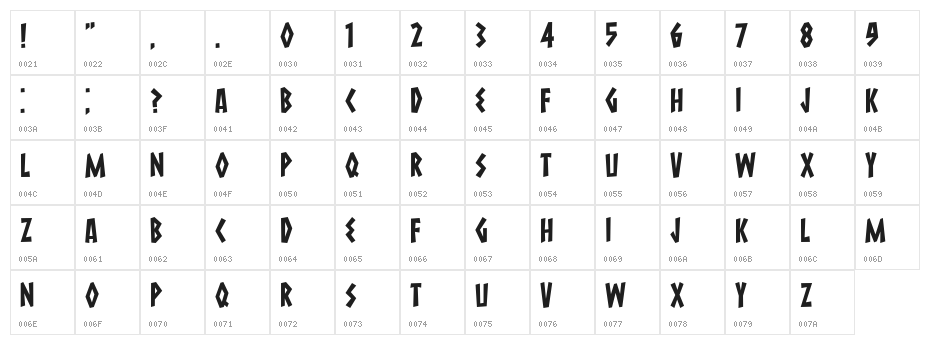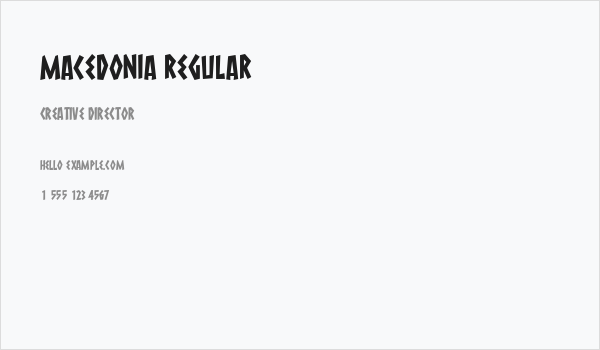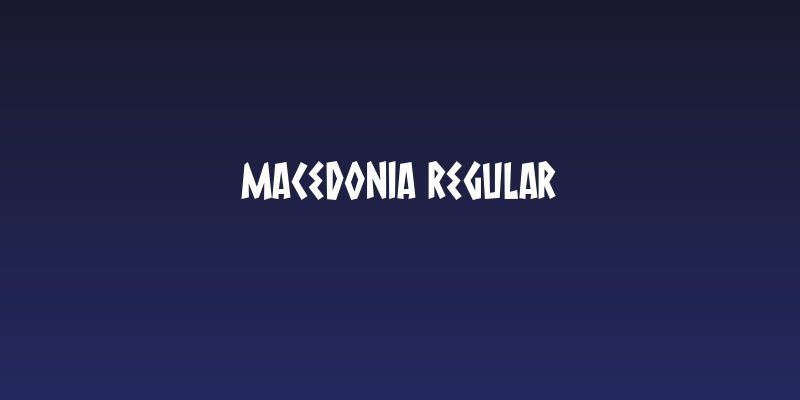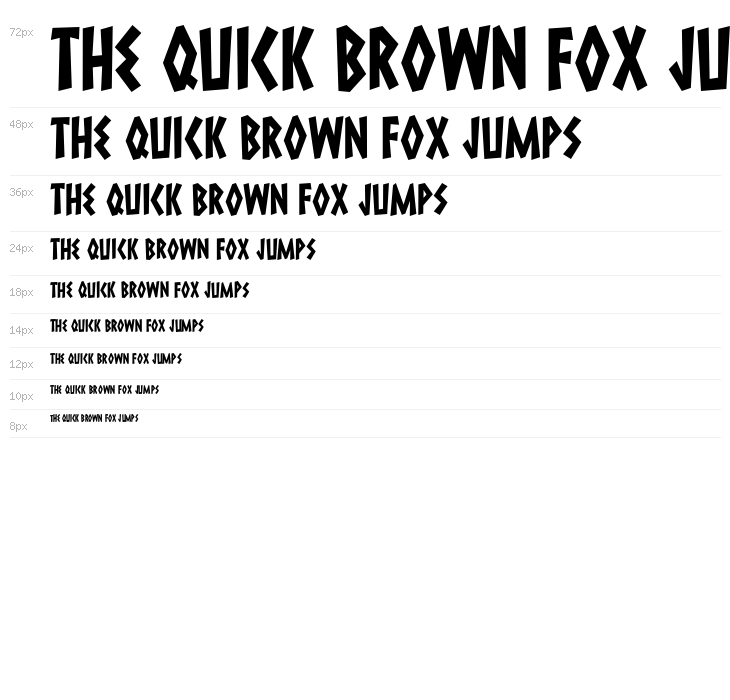
Macedonia Regular Font
Macedonia Regular Description
This font features a bold and angular design, characterized by sharp edges and a geometric style. The uppercase letters are particularly striking, with a strong presence that commands attention. The numbers and special characters maintain this bold aesthetic, ensuring consistency across all glyphs. The font's unique style makes it ideal for projects that require a modern and edgy look, while still being highly readable. Its distinct appearance is perfect for making a statement in any design context.